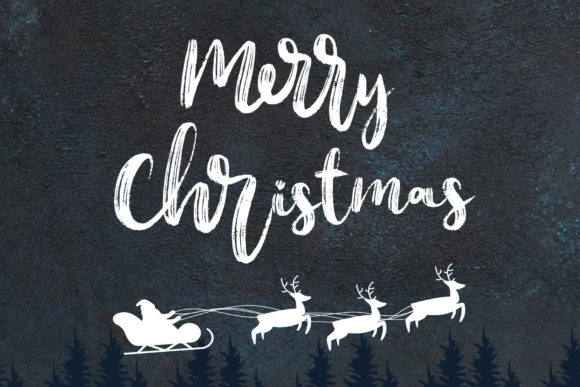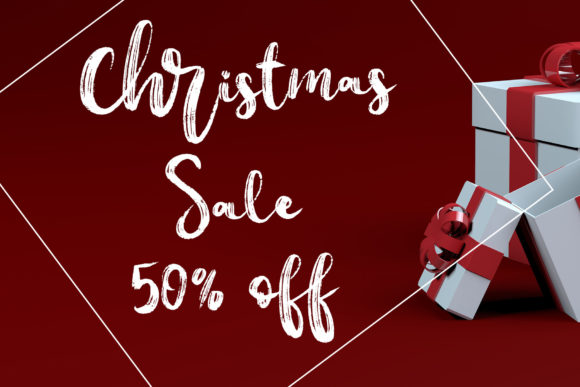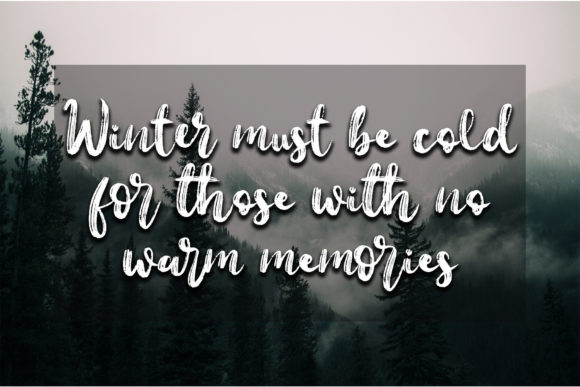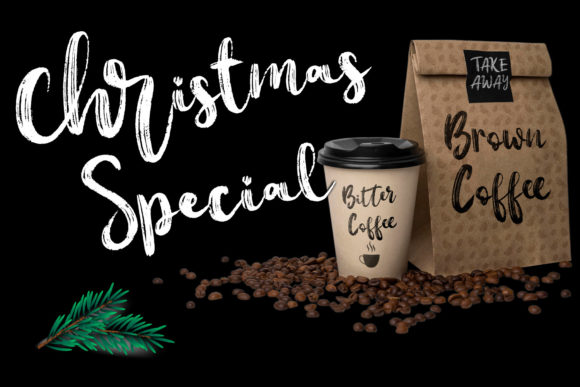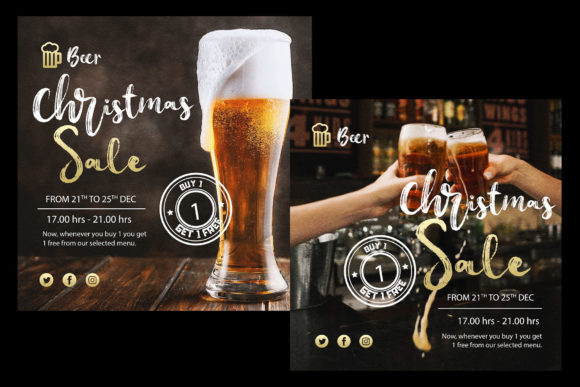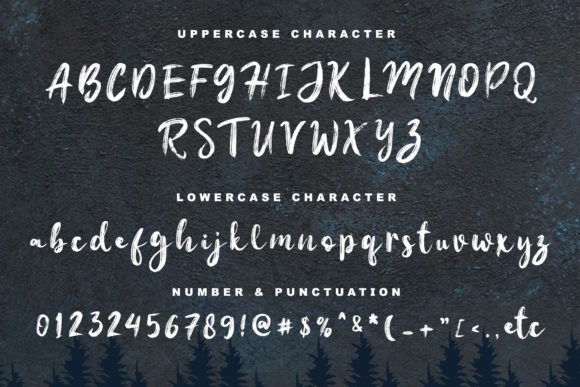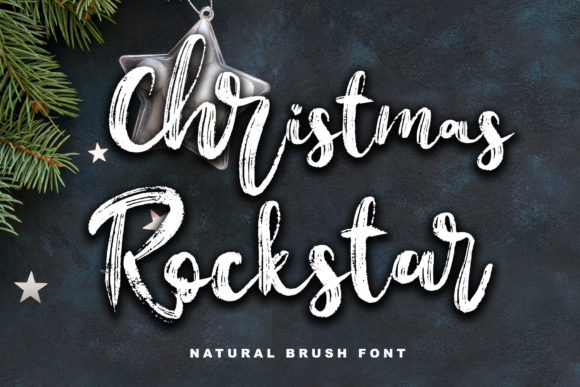
Introducing Christmas Rockstar Font: Elevate Your Designs with Elegance and Class
Are you looking for a font that adds a touch of sophistication and glamour to your designs? Look no further than Christmas Rockstar Font, a stunning brushed script font that exudes elegance and class. Crafted with precision and attention to detail, this font is perfect for designers and crafters seeking to create beautiful and refreshing designs that stand out from the crowd.
What Makes Christmas Rockstar Font Special?
Christmas Rockstar Font is a unique and versatile font that boasts a range of features that make it an ideal choice for various design projects. Here are some of its key characteristics:
- Lovely Brushed Script Style: Christmas Rockstar Font features a gorgeous brushed script style that adds a touch of elegance and sophistication to any design.
- Ease of Use: This font is PUA encoded, which means you can access all the glyphs and swashes with ease, making it simple to use and incorporate into your designs.
- Highly Versatile: Whether you’re working on a Christmas-themed project, a wedding invitation, or a luxury brand campaign, Christmas Rockstar Font is the perfect choice.
Why Designers and Crafters Love Christmas Rockstar Font
Designers and crafters around the world have fallen in love with Christmas Rockstar Font, and for good reason. Here are some reasons why:
- Unique and Eye-Catching: This font is sure to grab attention and make your designs stand out from the crowd.
- Easy to Read: Despite its elegant and cursive style, Christmas Rockstar Font is highly legible, making it perfect for use in a variety of design applications.
- Customizable: With its PUA encoding, you can easily access and use the font’s various glyphs and swashes to create unique and customized designs.
Christmas Rockstar Font is an incredibly versatile font that can be used in a wide range of design projects, including:
- Christmas-themed Designs: Create stunning Christmas cards, invitations, and decorations with this beautiful font.
- Wedding Invitations and Stationery: Add a touch of elegance and sophistication to your wedding designs with Christmas Rockstar Font.
- Luxury Brand Campaigns: Use this font to create high-end brand campaigns that exude luxury and sophistication.
- DIY Crafts and Projects: Perfect for crafters, this font can be used to create beautiful and unique DIY projects, such as handmade cards and decorations.
In conclusion, Christmas Rockstar Font is a stunning and versatile font that is perfect for designers and crafters seeking to add a touch of elegance and class to their designs. With its lovely brushed script style, ease of use, and high versatility, this font is sure to become a favorite in your design arsenal. So why wait? Download Christmas Rockstar Font today and start creating beautiful and refreshing designs that stand out from the crowd!